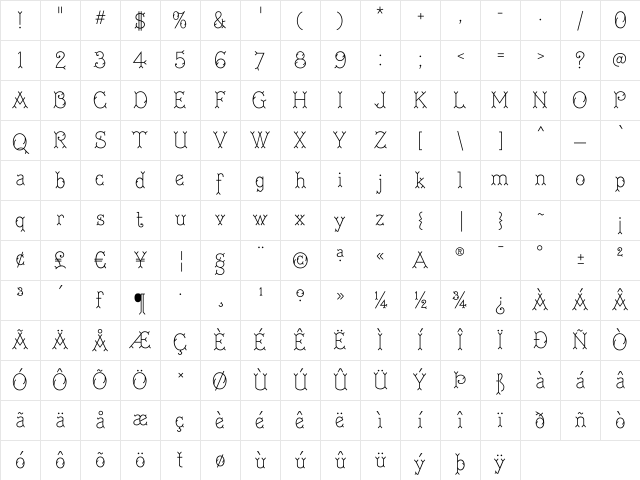
AstoriaAntiqueSG TT Light wears its vintage influences proudly, with letterforms that recall mid-century signage, classic packaging, and nostalgia-driven design. Its slender proportions lend an understated elegance to any composition.
Font Pairing: Combine AstoriaAntiqueSG TT Light with a simple slab or neutral sans - period-accurate companions reinforce the vintage feel without competing for attention.
Pro Tip: Lean into AstoriaAntiqueSG TT Light's period character by pairing it with aged paper textures, muted colour palettes, and vintage illustration styles.